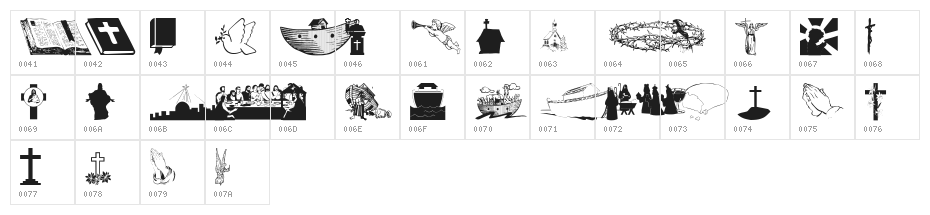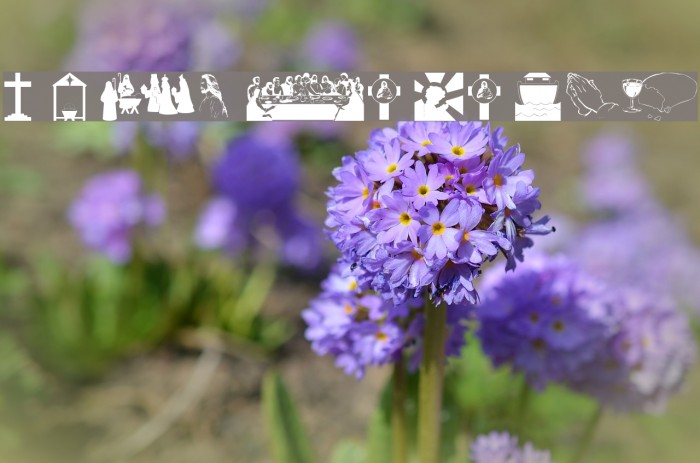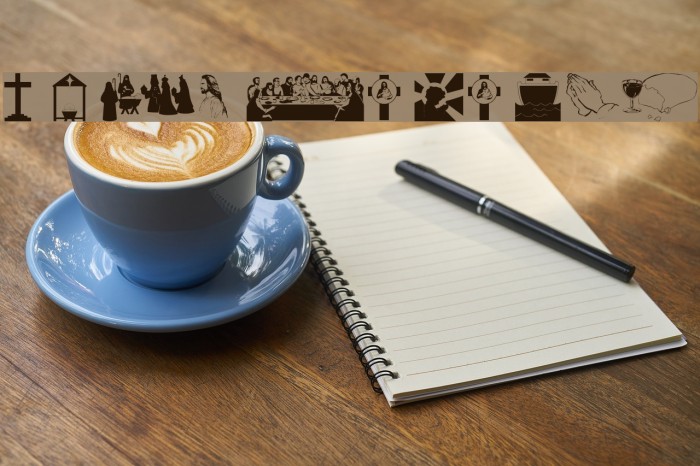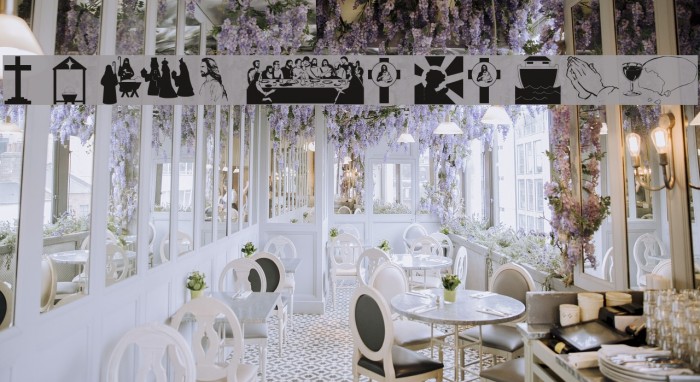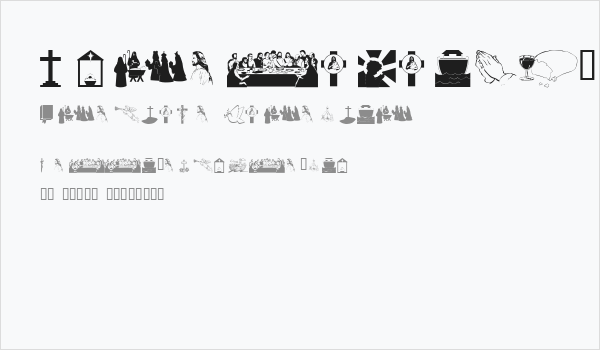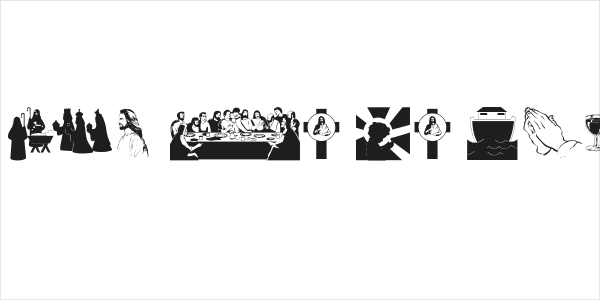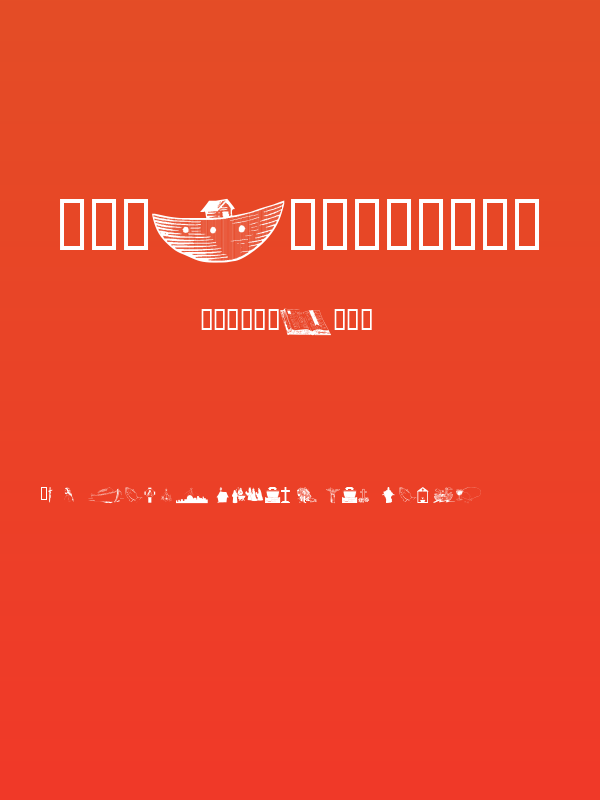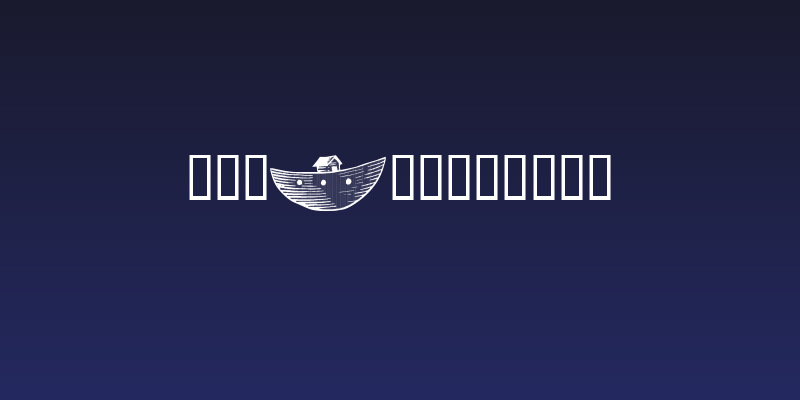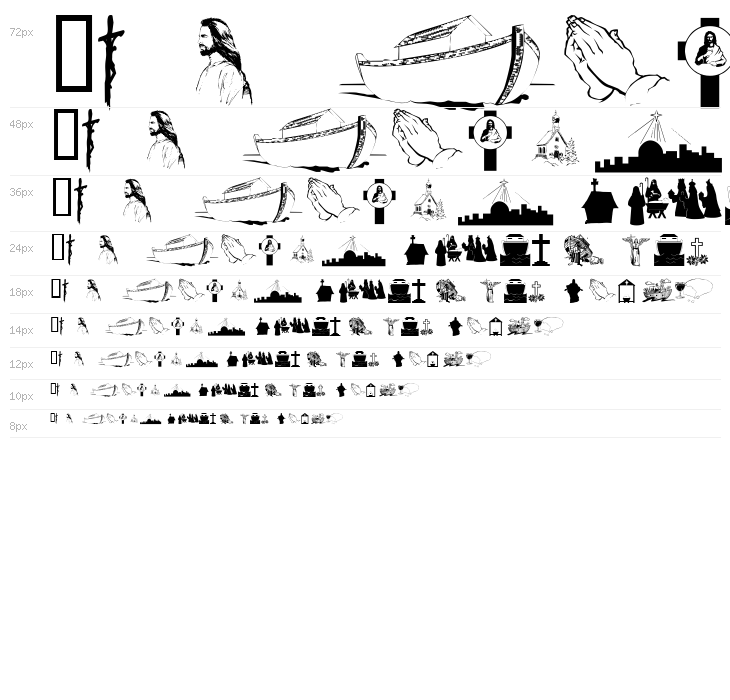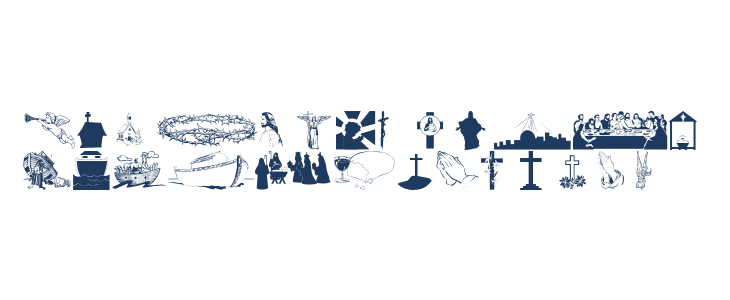
wmreligious1 Font
wmreligious1 Description
A collection of religious-themed pictograms and icons, including images of books, doves, churches, crosses, praying hands, and biblical scenes, rendered in a bold, high-contrast black and white style.
| Overall Style | Decorative, Thematic |
| Use Case | Icons, Decorative elements, Themed headings |
| Proposed Projects | Church bulletins, religious event flyers, educational materials, Sunday school resources, themed invitations. |